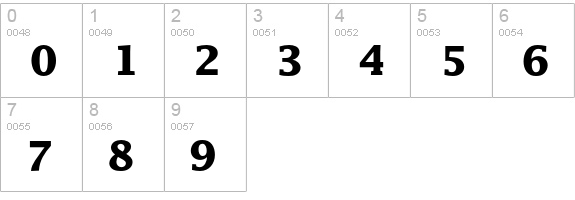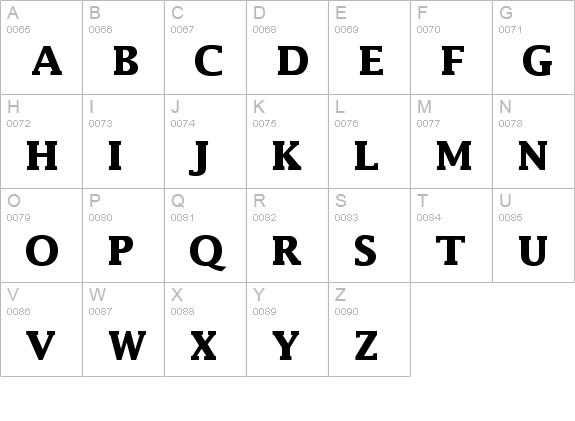
Lucida Bold is a strong, high-contrast variant in the Lucida typeface family \xE2\x80\x94 well suited to headlines, attention-grabbing titles, and strong calls-to-action.
Lucida Bold font is a modern and versatile typeface that exudes confidence and sophistication. With its bold and striking appearance, Lucida Bold commands attention and makes a bold statement in any design project. This font is perfect for headlines, titles, logos, and any other text that needs to stand out. Its clean and crisp lines give it a contemporary look while maintaining a timeless appeal. The best part about Lucida Bold font is that it is available for free download at FontsMarket.com. You can easily access this high-quality font and enhance your designs without any cost. Whether you are a graphic designer, a student, or a business professional, Lucida Bold font is a valuable addition to your font collection. Embrace the power of bold typography with Lucida Bold and make your designs pop!